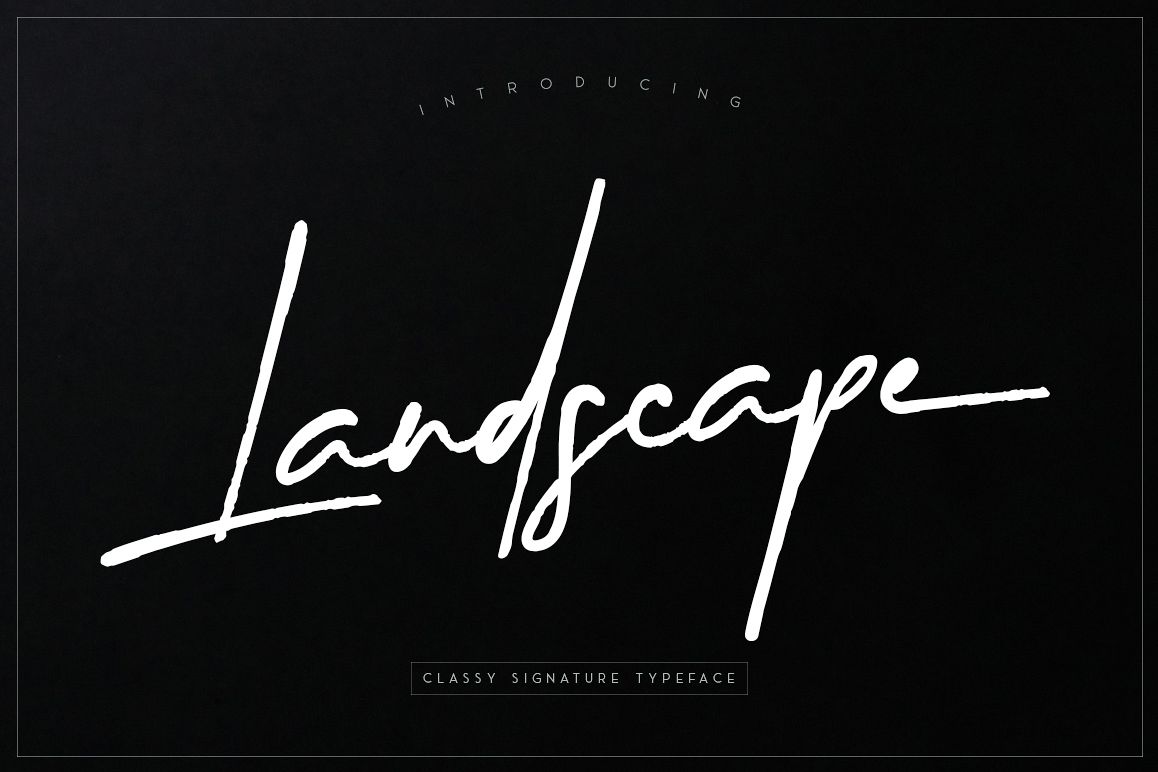
Landscape
Landscape-Regular
We introduce our new product called Landscape signature. The Landscape signaturet font is a modern Hand lettering. We give you a swash to make your design look more awesome. Landscape signature font is great for logotype, Branding Design, Logo Design, Digital Lettering Arts, T-Shirt/Apparel, Poster, Magazine, Signs, Advertising Design, wedding invitation and any hand lettered needs.
Landscape signature font Features :
- Upper and Lowercase Standard Characters, Punctuation, Numerals
- Ligatures and Stylistic Alternates